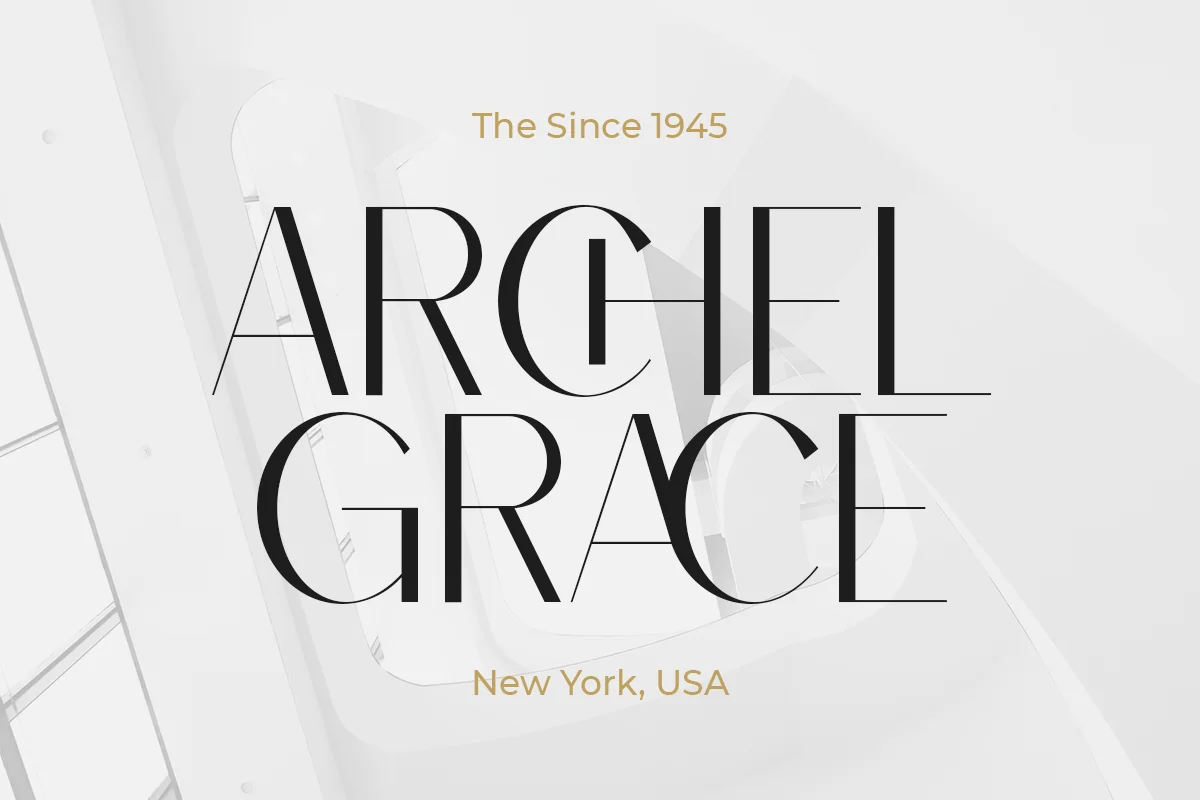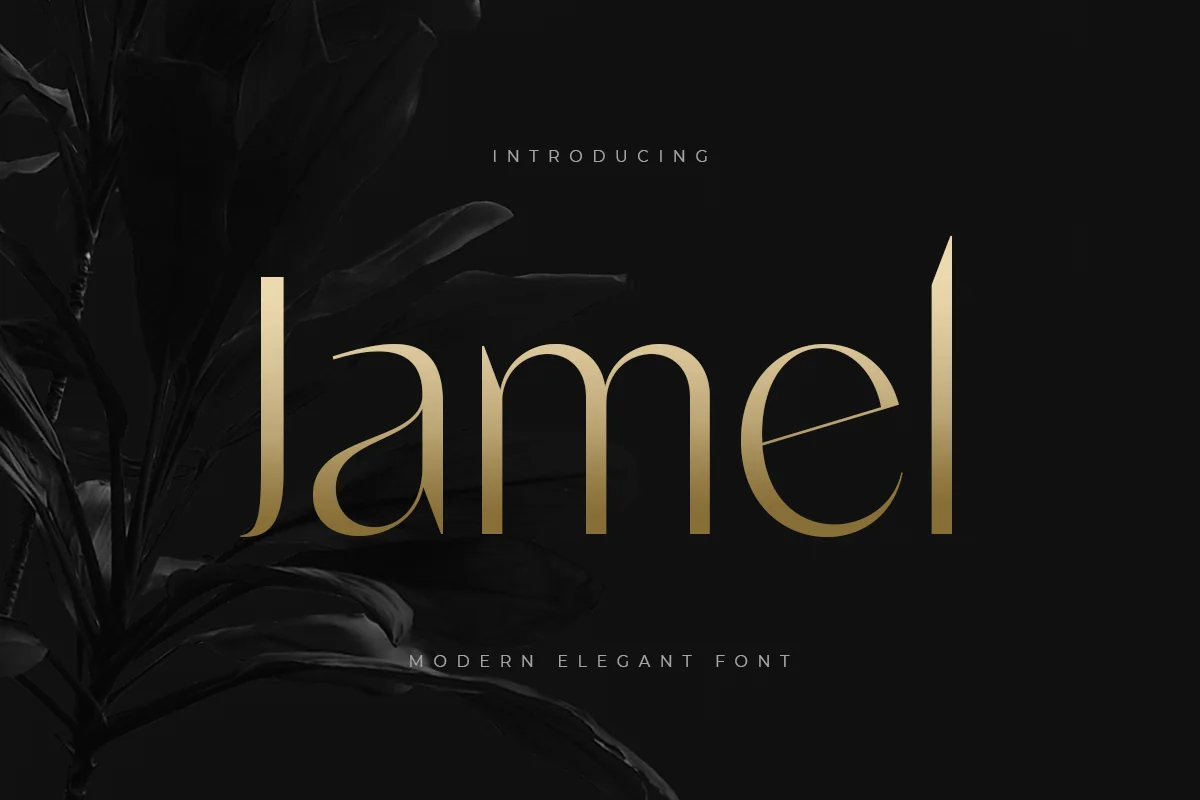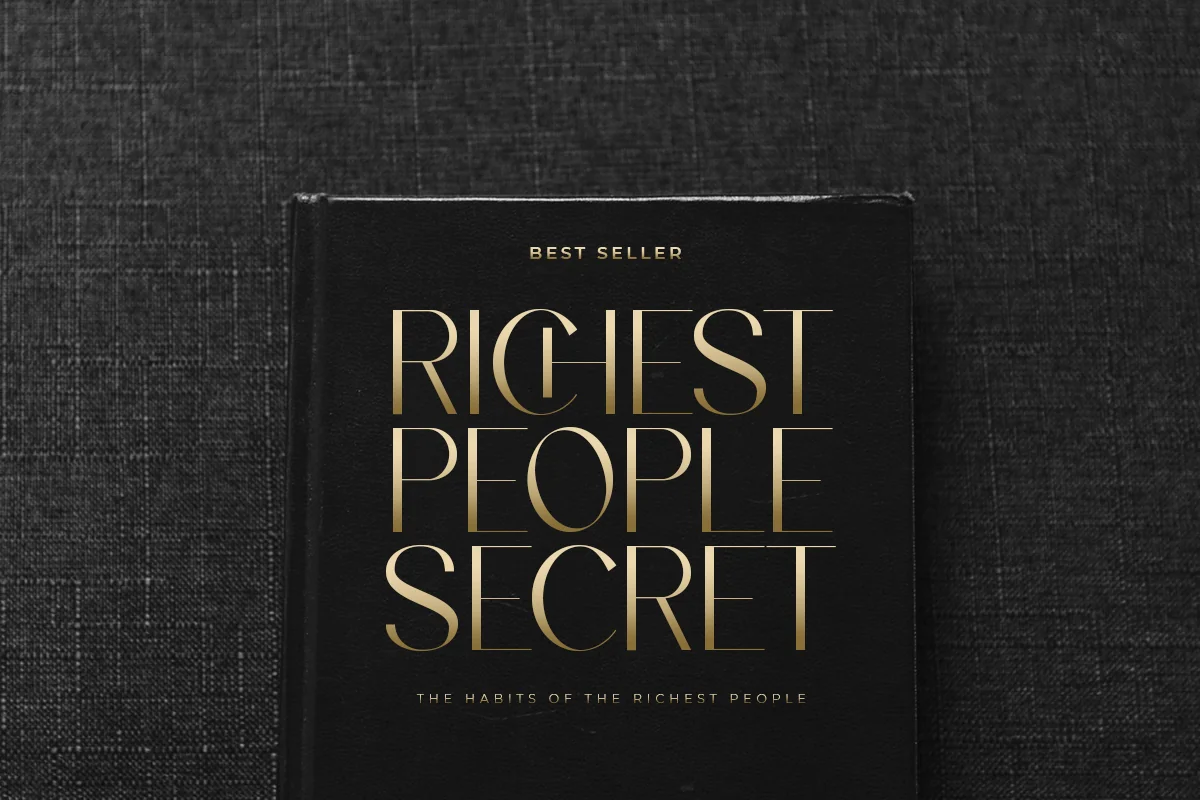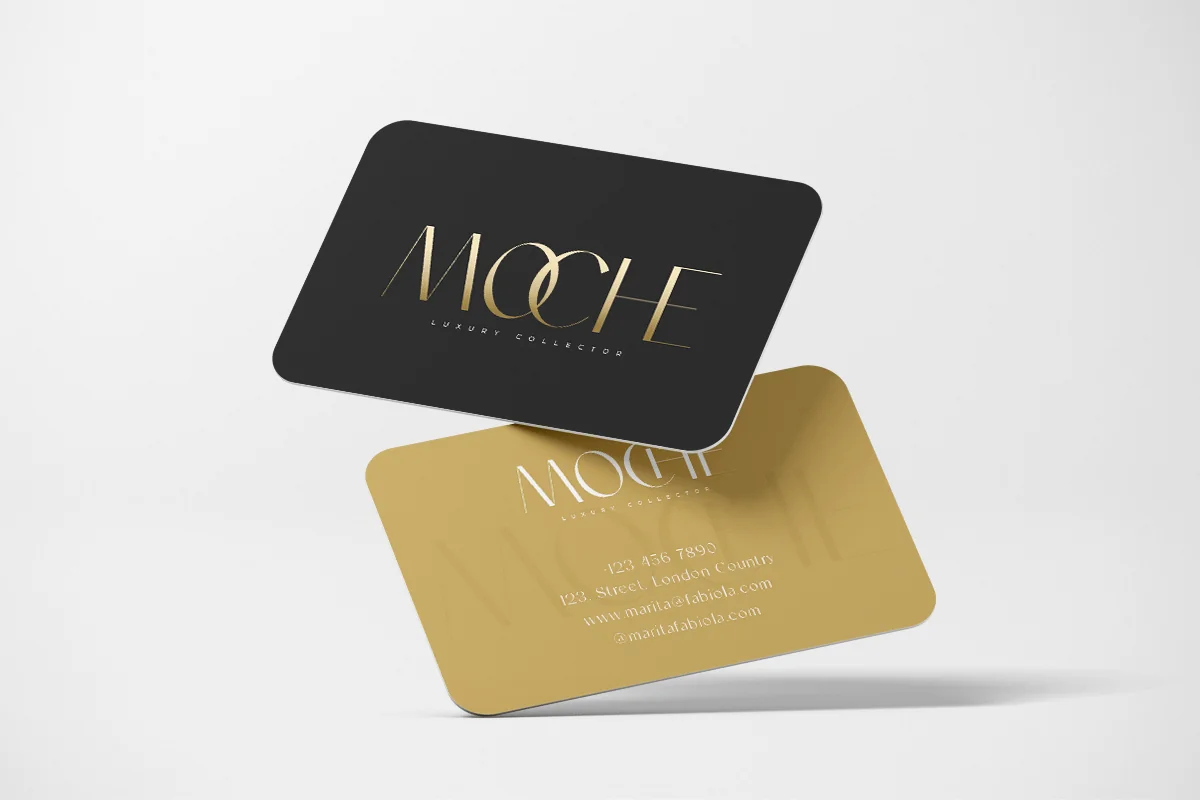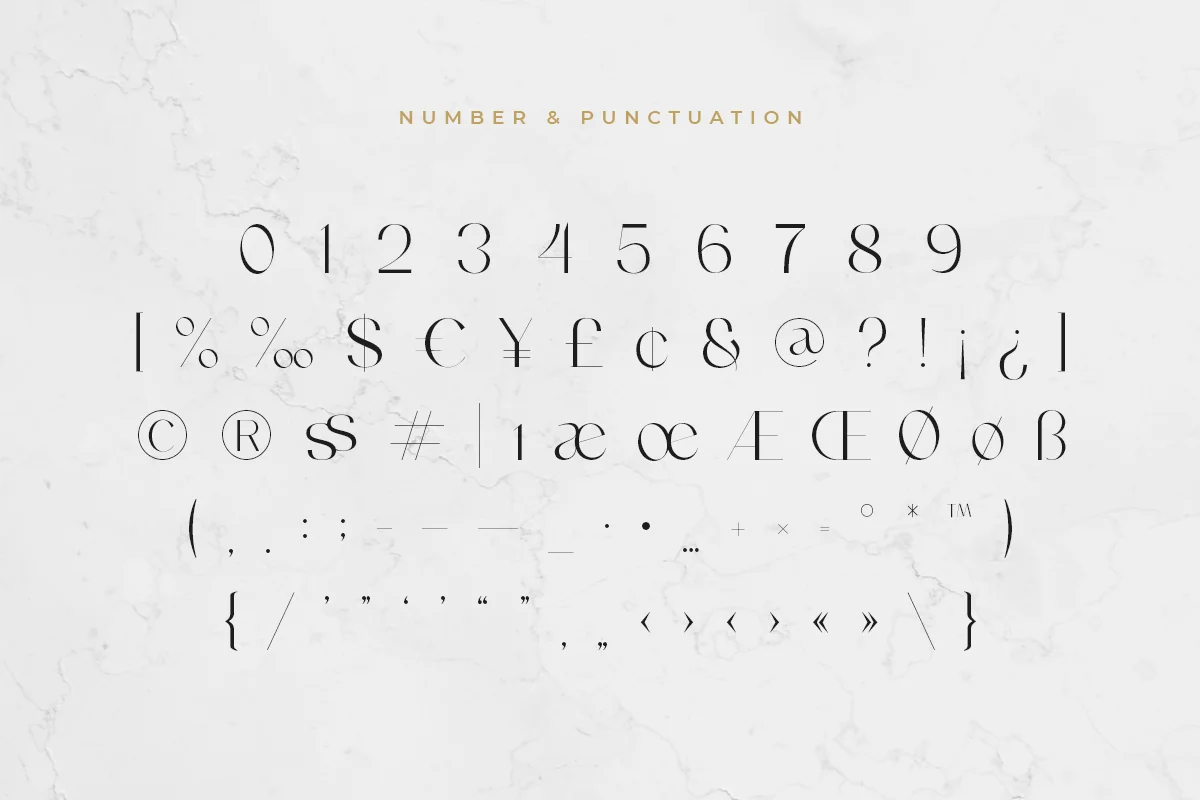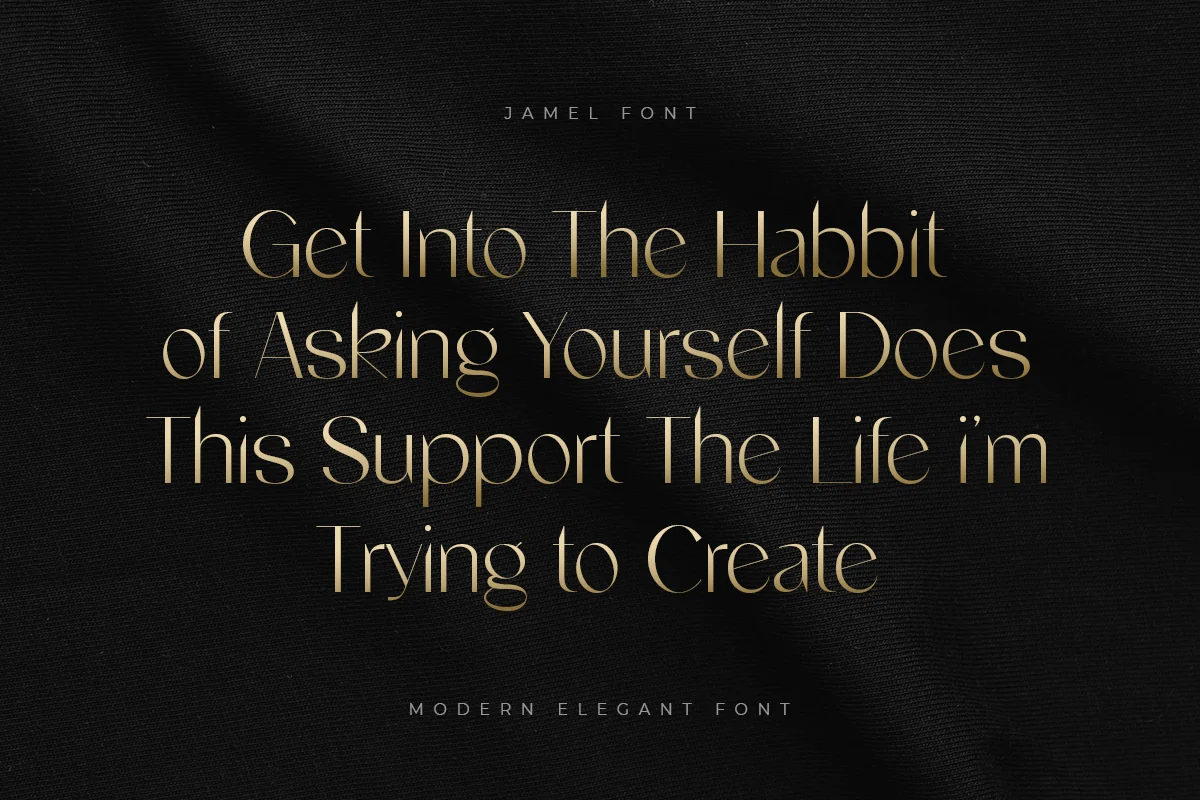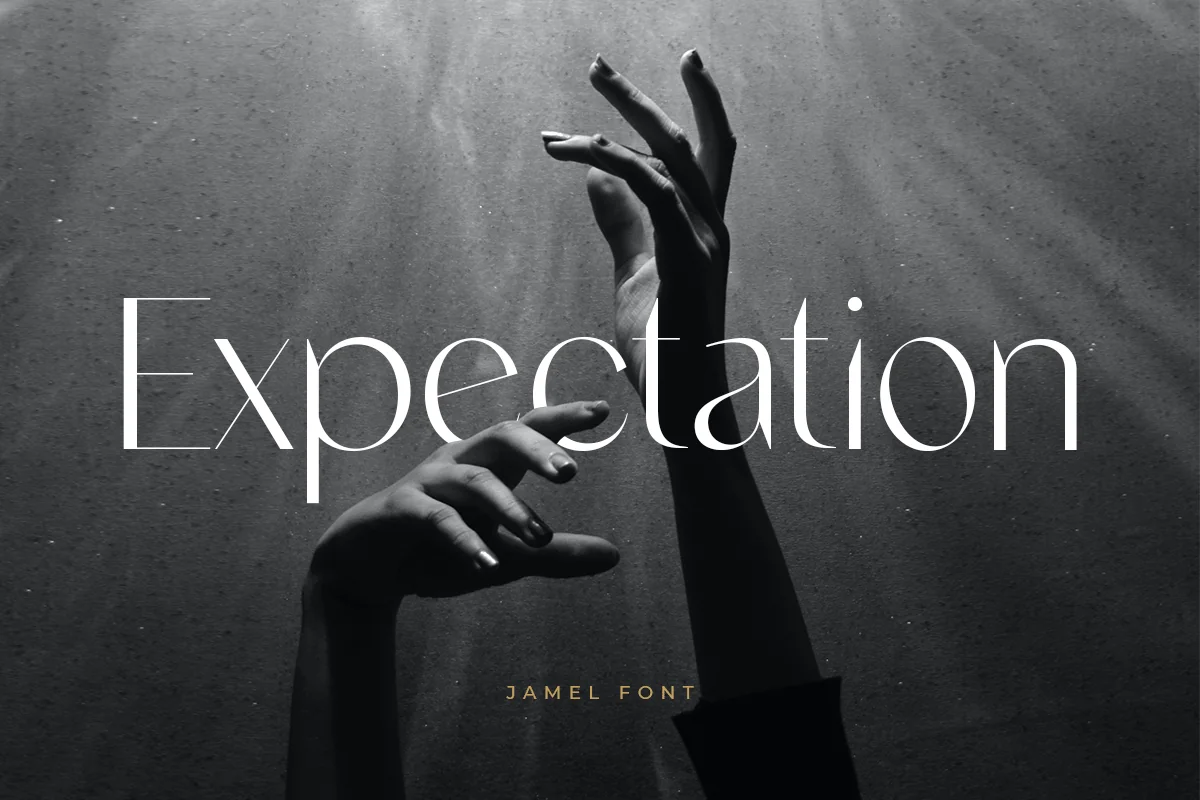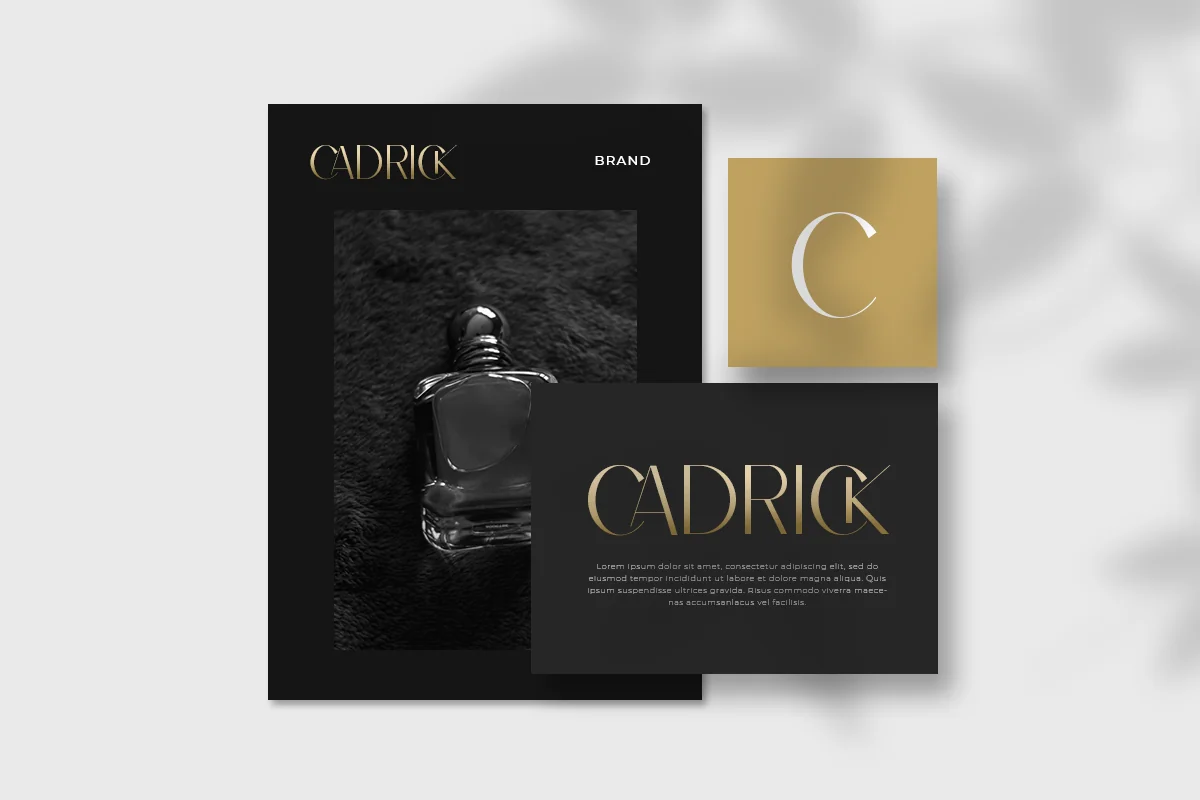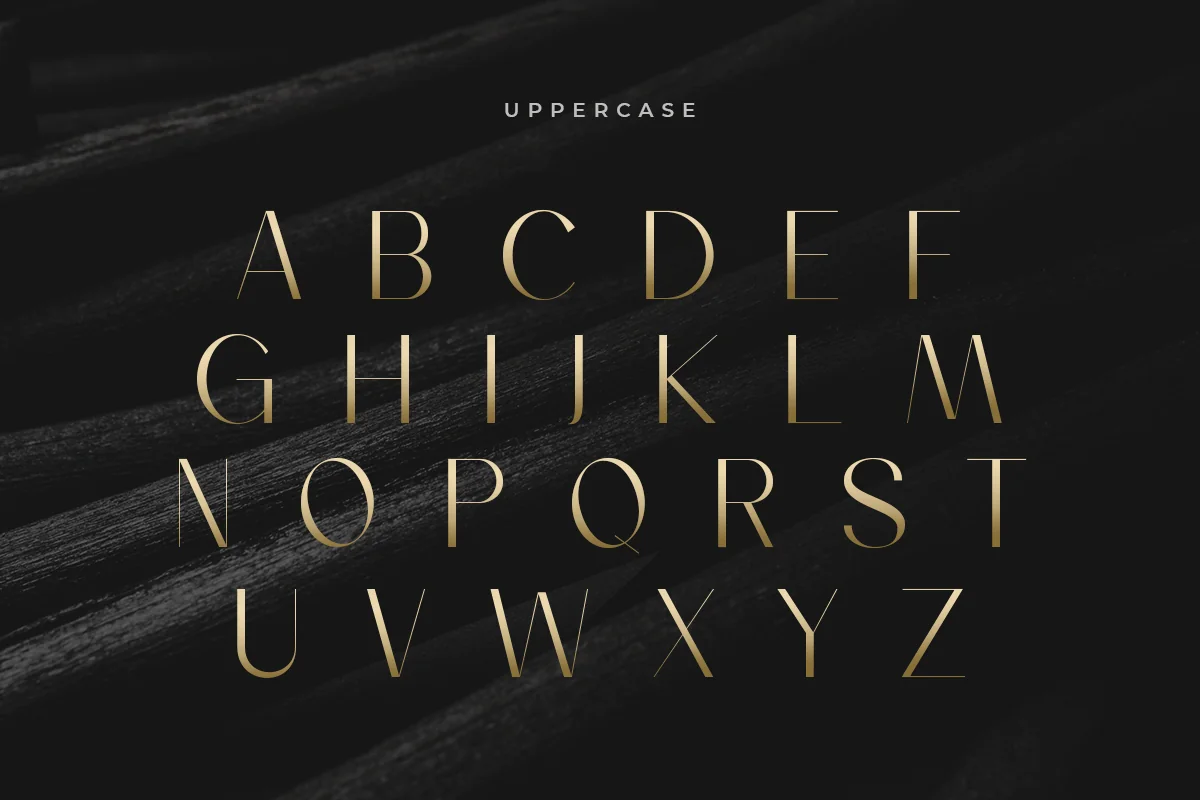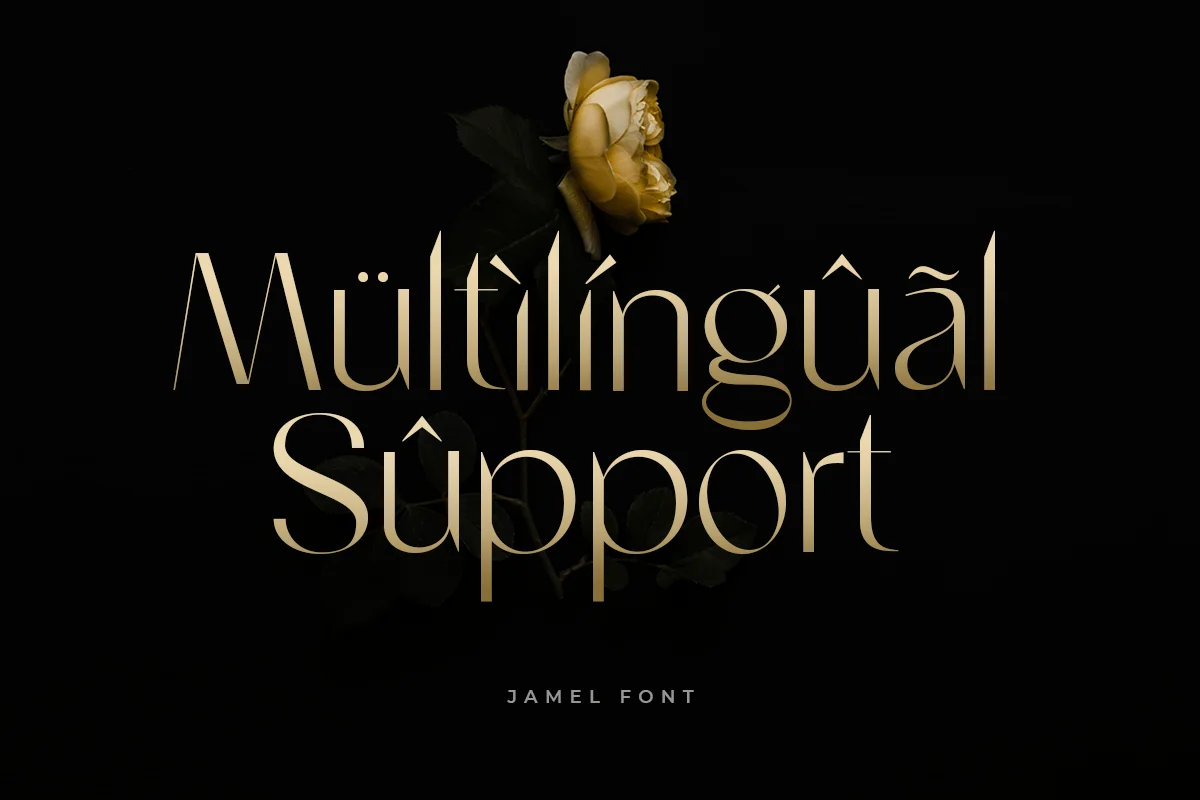
Jamel – Modern Elegant Font
Jamel is a Modern Luxury Elegant Sans Serif Font with Sharp shape make your design look classy and elegant
A new San Serif Font that we created special for Headline, Title and more stand out typography needs, with extra ligature that will add your variations. It’s so perfect to add your style and headline overview. And specially for Luxury font, we crafted for unique style and modern feels so enjoy to create any project that will show your main idea out.
Jamel Modern Luxury Elegant Sans Serif Font ready with:
- Any options to get creative variations (combination of Ligature Characters)